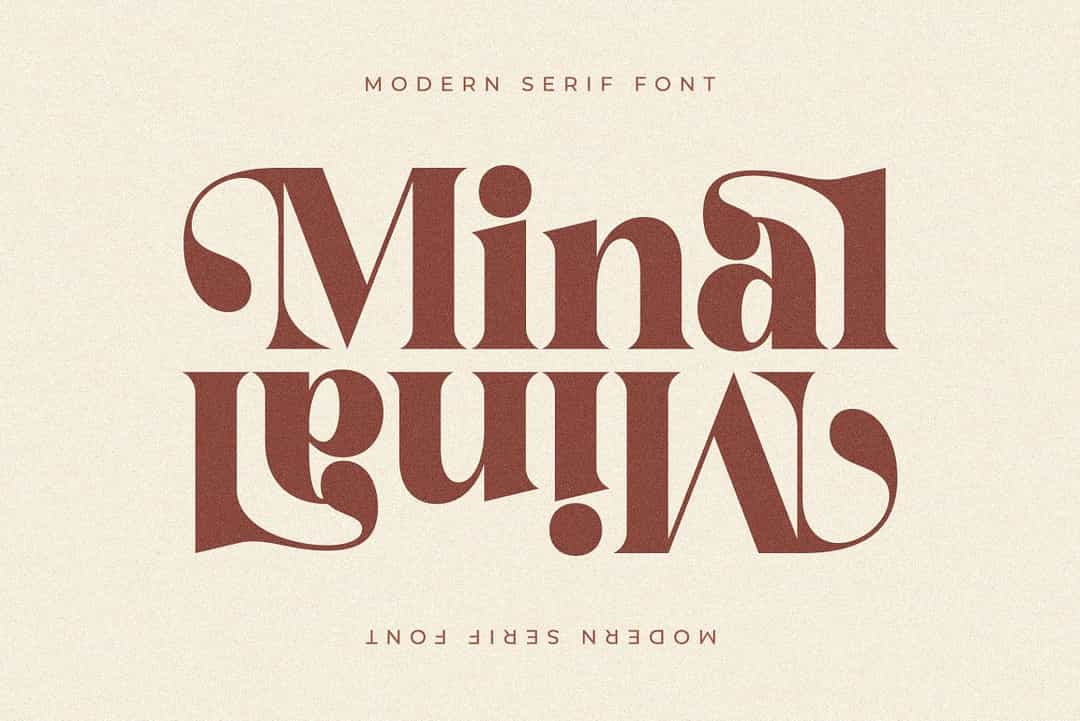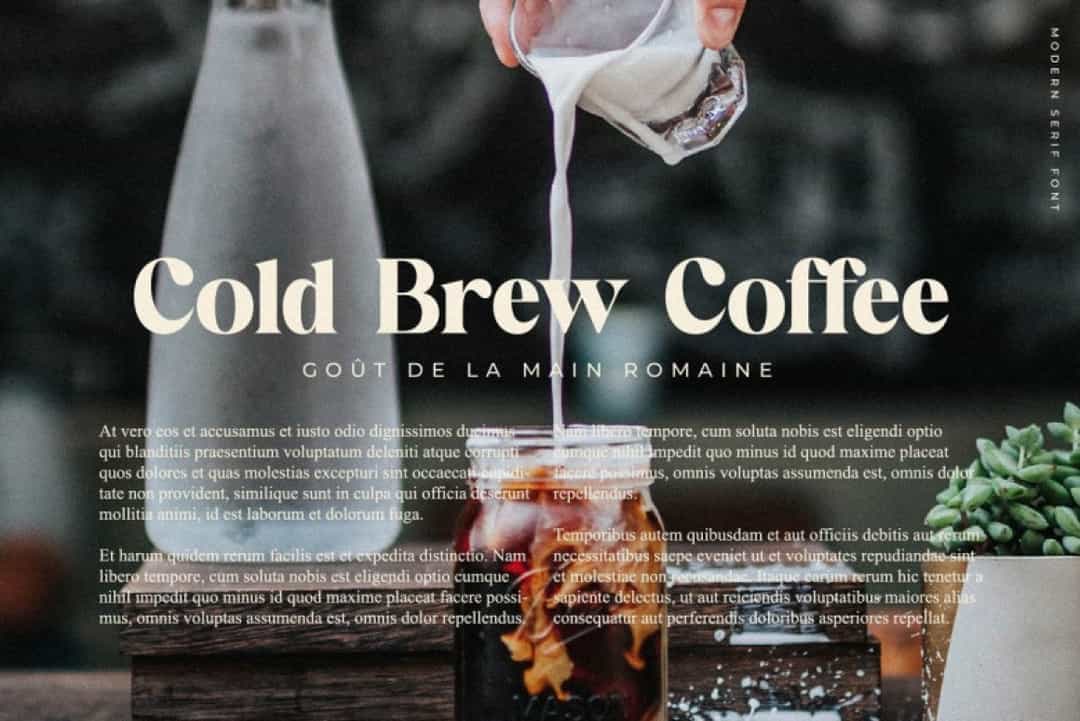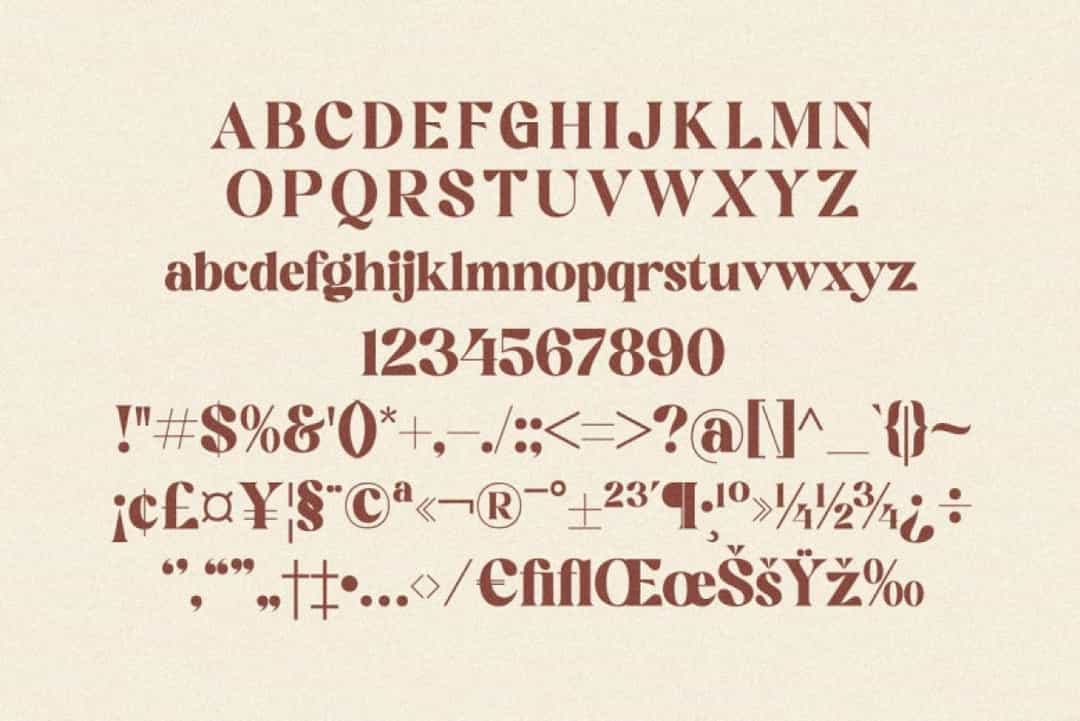
Minal is an elegant serif font designed with modernity in mind, featuring unique characters and modern styling that make it the ideal font choice for many designs. Perfect for creating classy logos, book/film name designs, clothing brand names or magazine articles as well as lettering quotes etc, Minal can add style and class to any project!